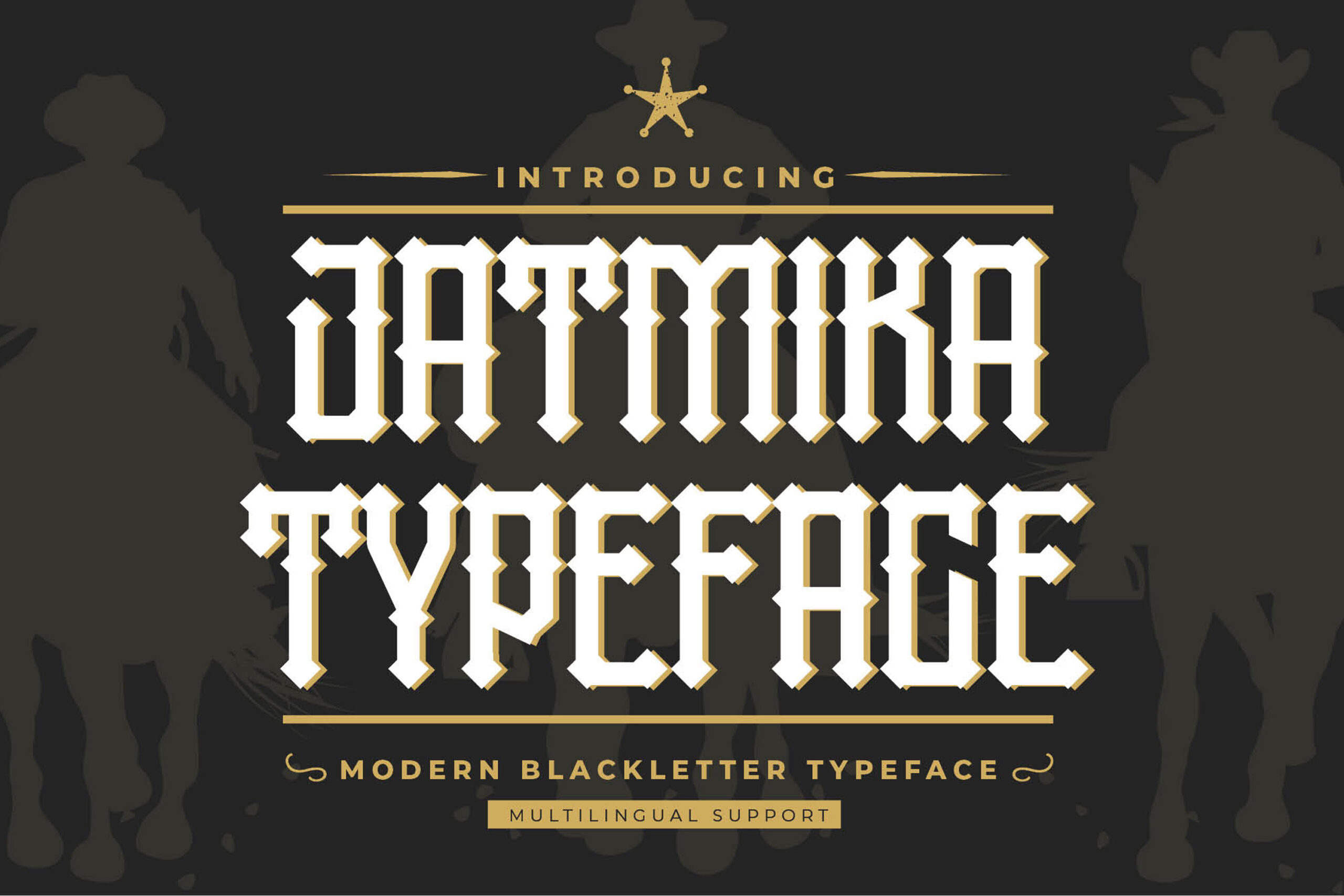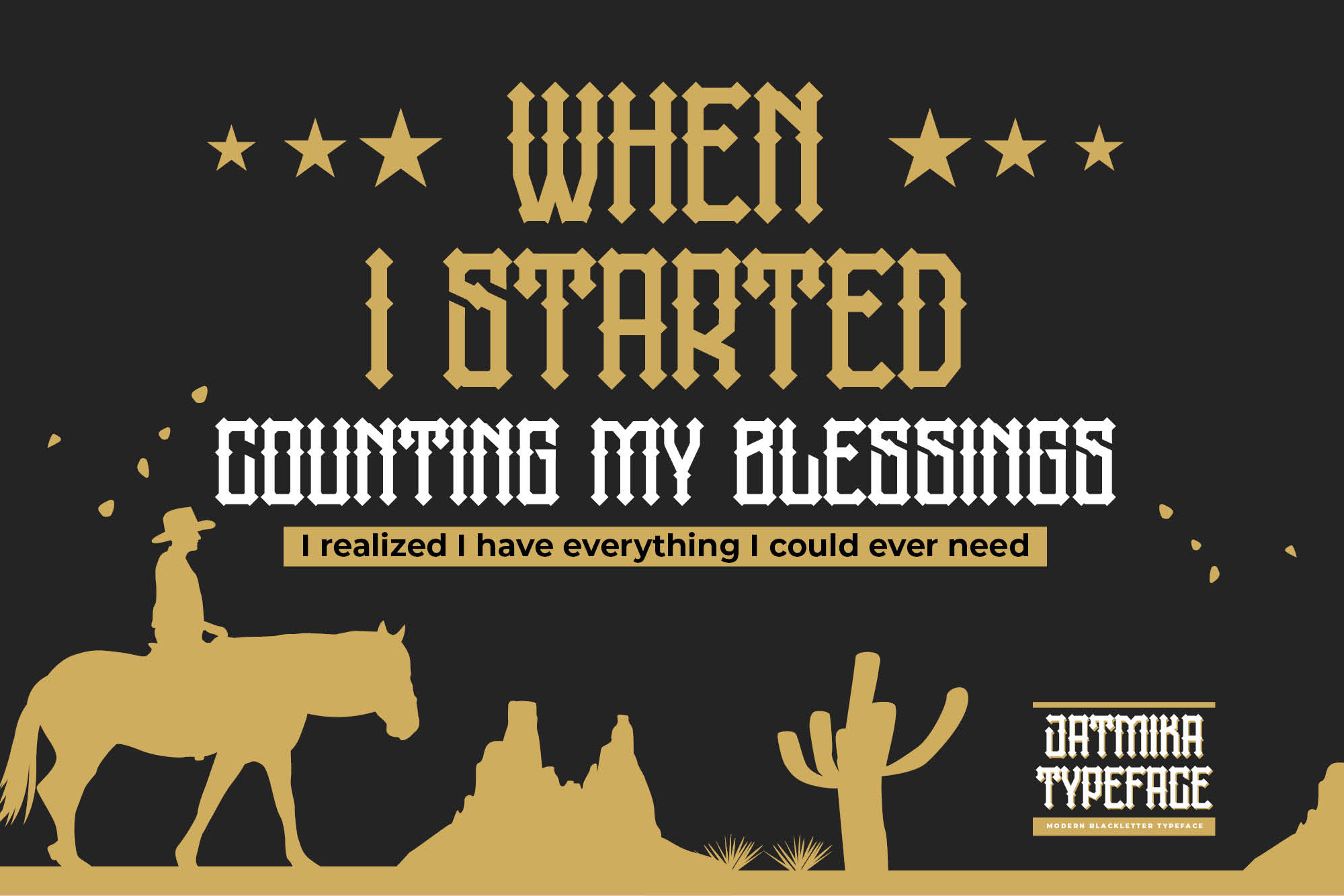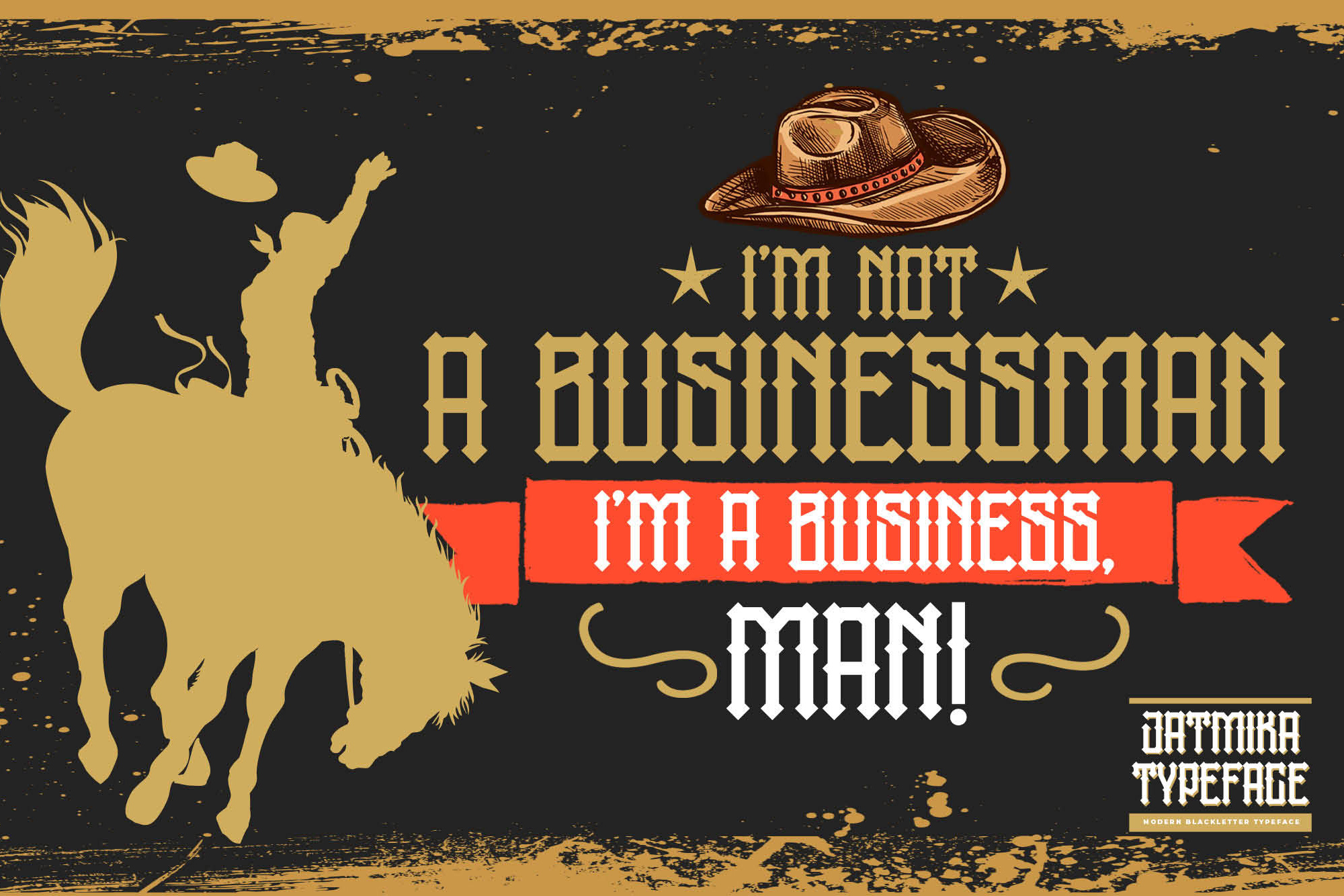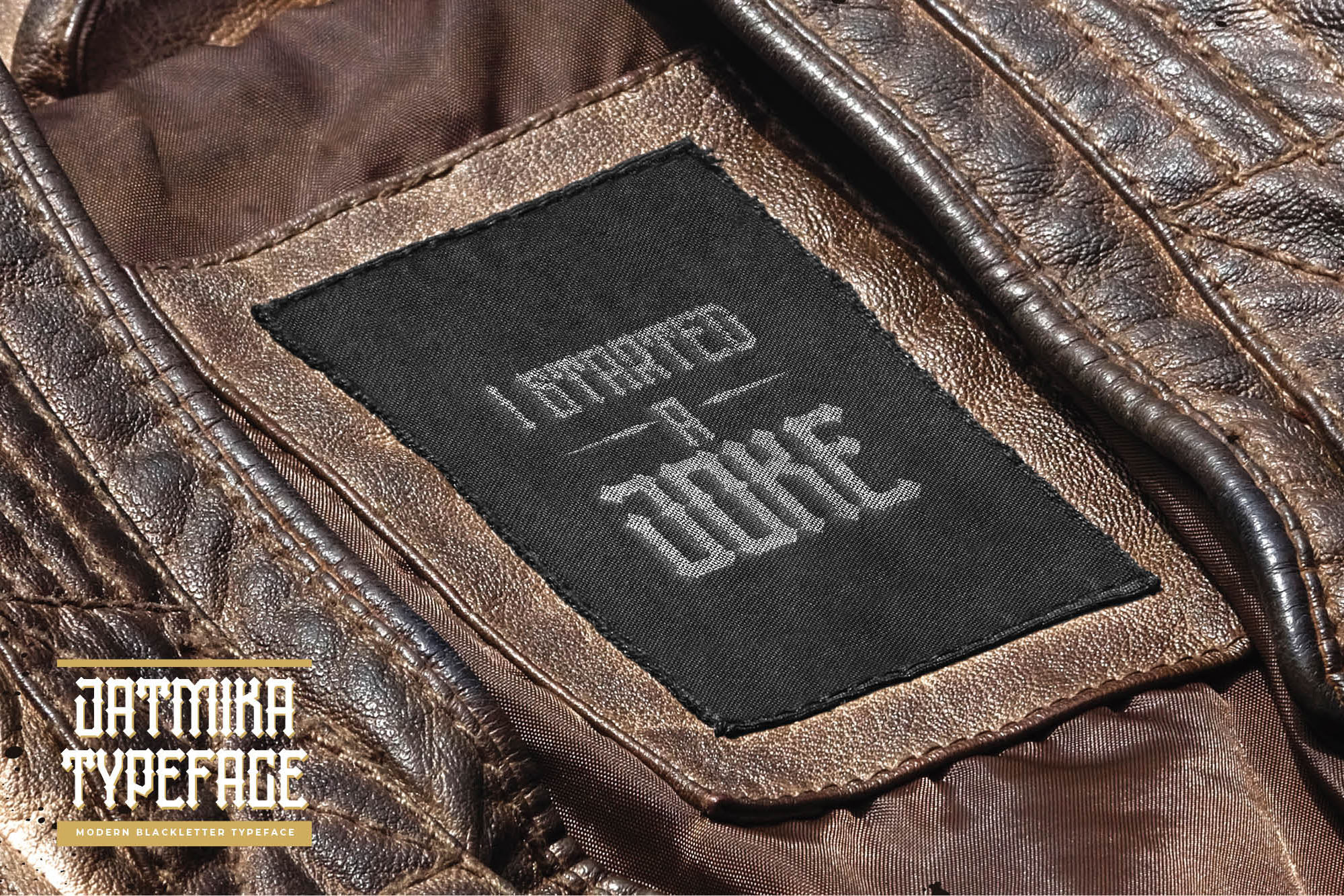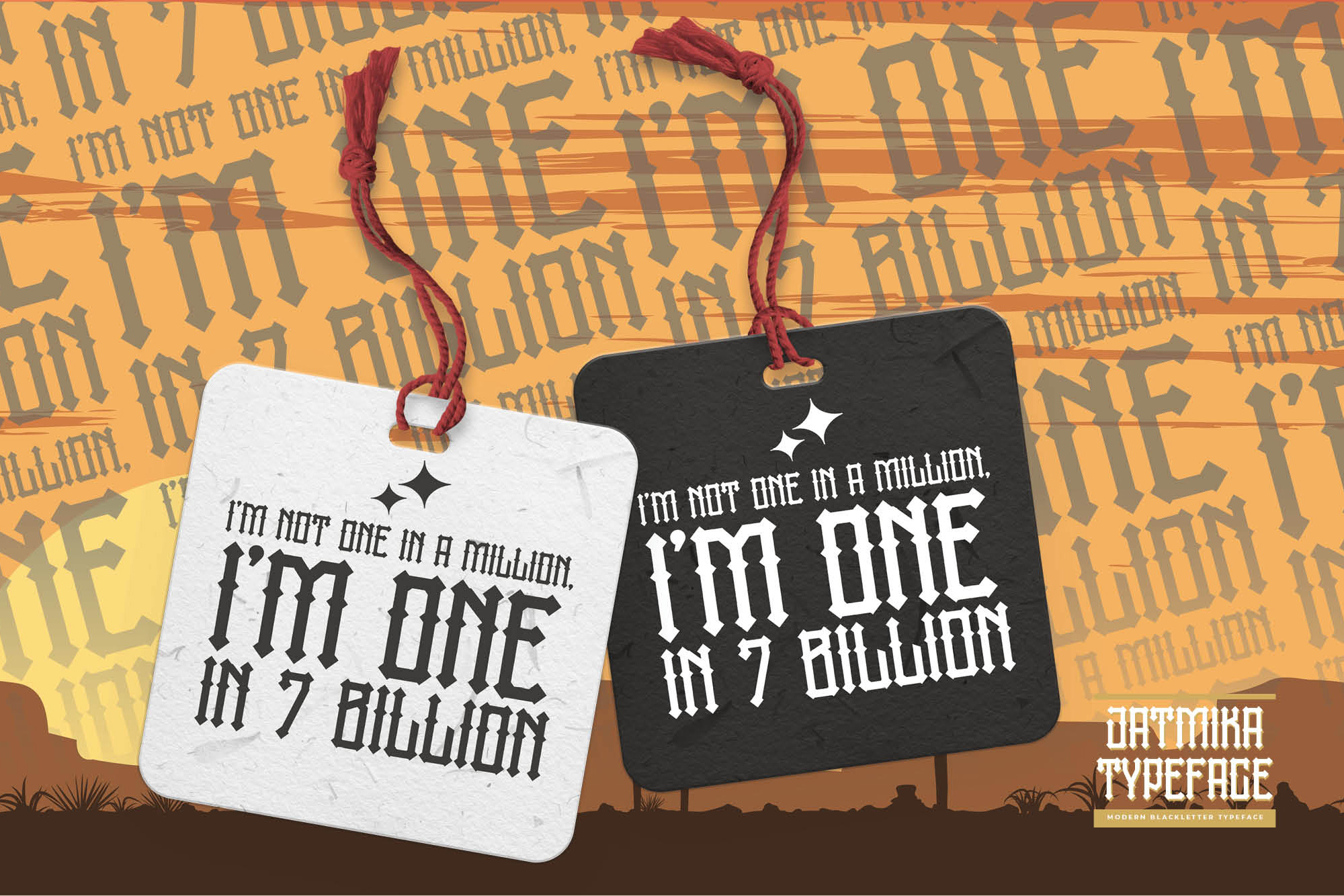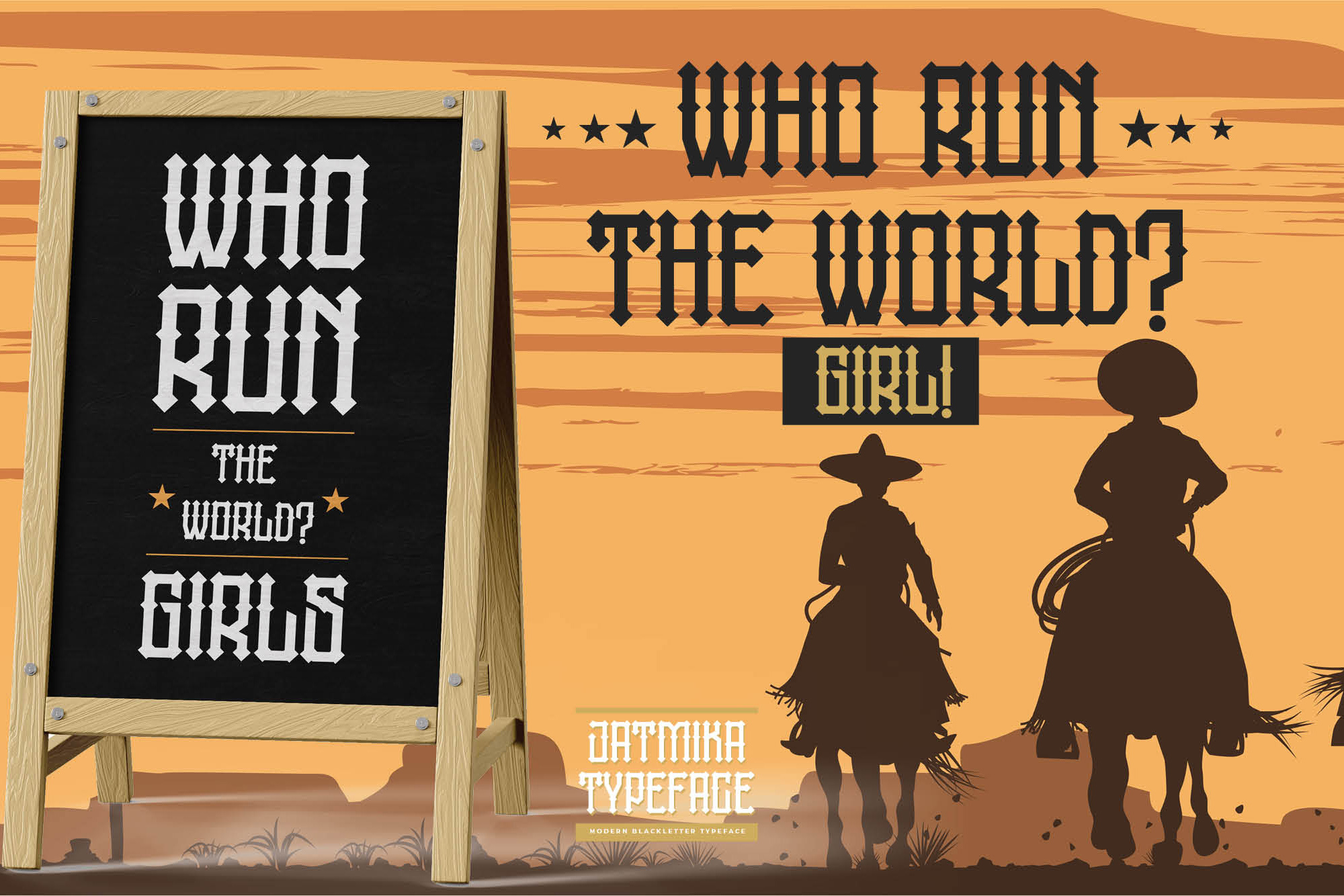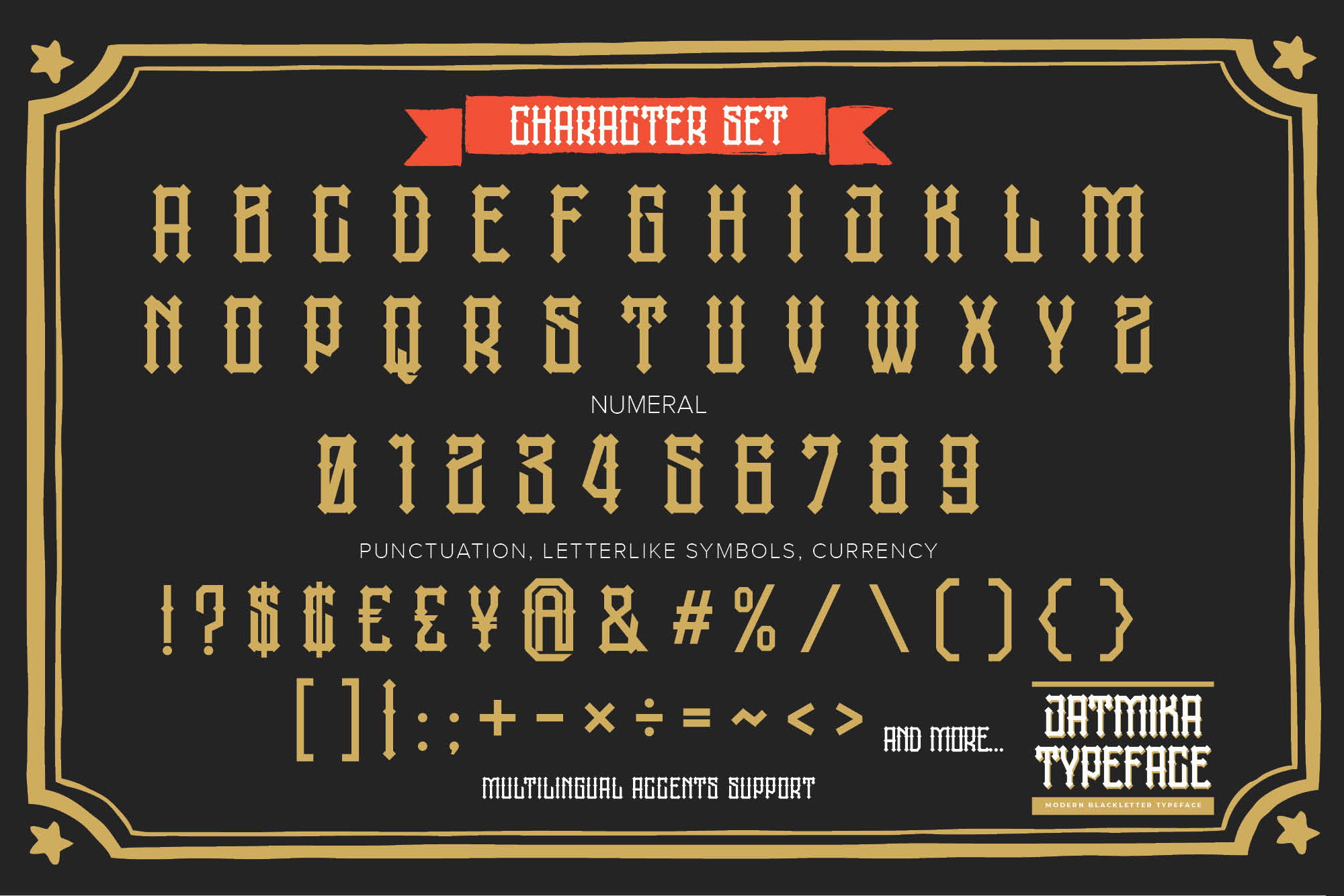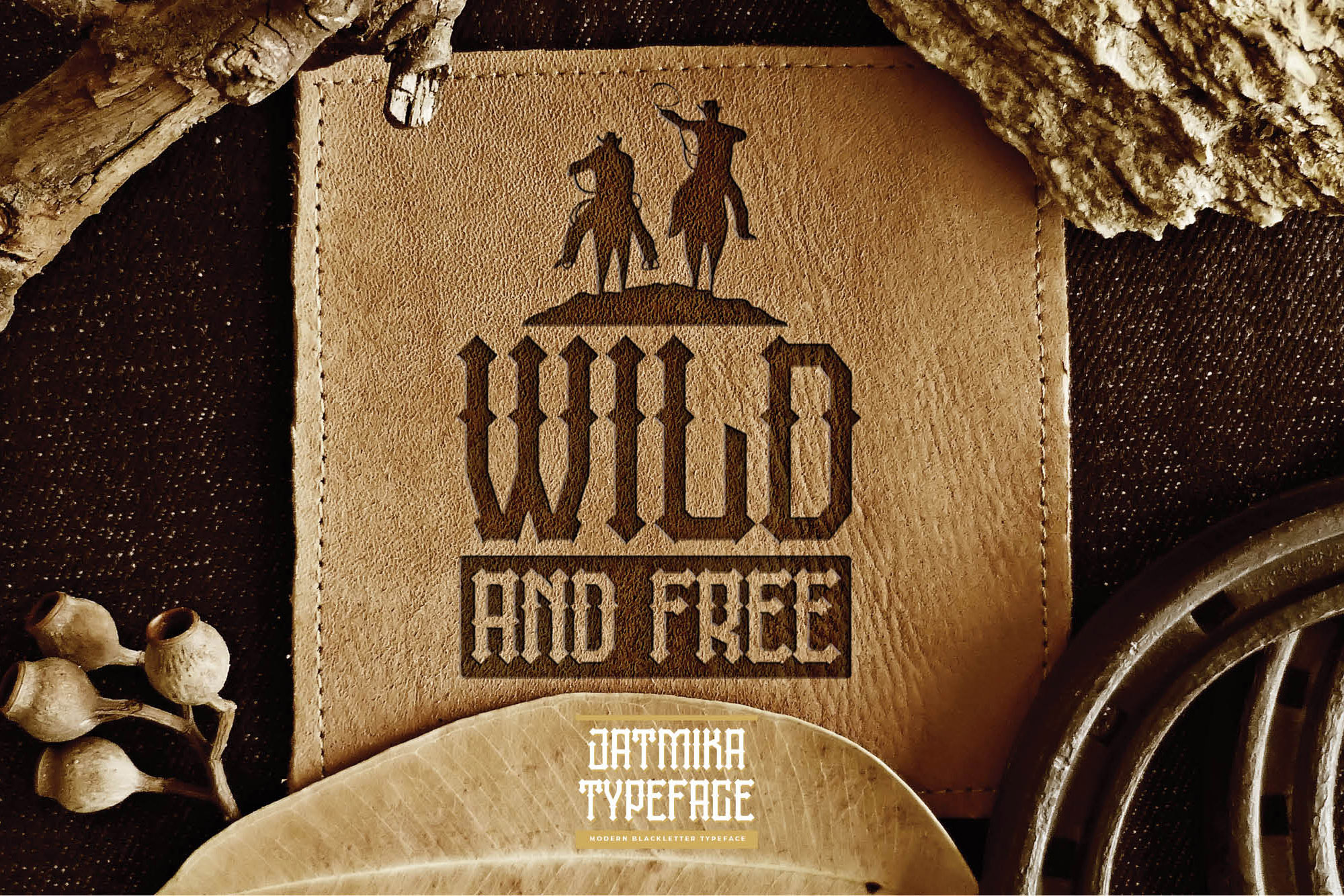
Jatmika Typeface – Modern Blackletter Typeface Serif Font Craft Font Display Font is an natural that is written casually and quickly.
That is why Jatmika Typeface has a authentic , and characteristic more natural look.
Jatmika Typeface Perfect for designs, branding projects, Logo design, Quotes product packaging and another Project that require cool display font.